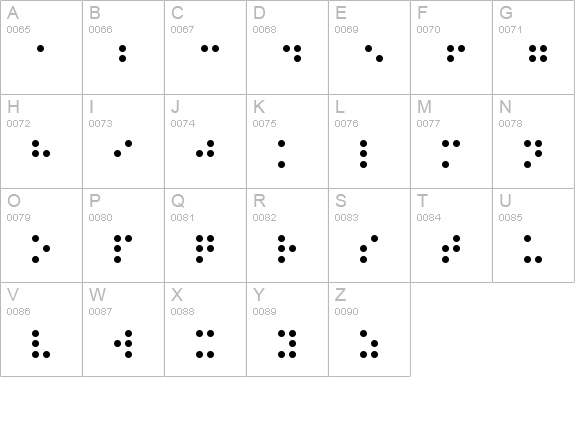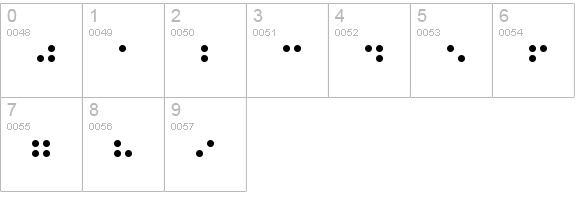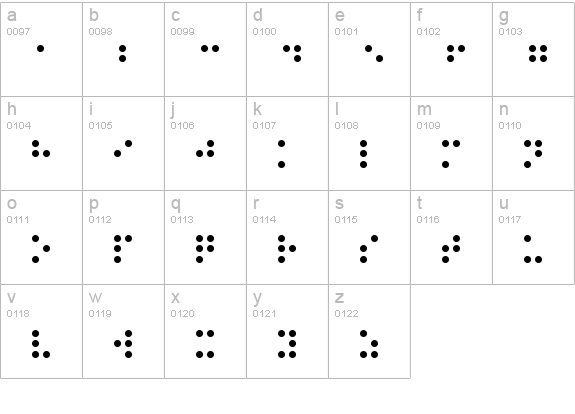
The Balkan Peninsula Braille font is a unique and specialized typeface designed to assist individuals with visual impairments in accessing information through the Braille system. This font is meticulously crafted to accurately represent the Braille alphabet, making it easy for users to read and understand tactile writing. What sets the Balkan Peninsula Braille font apart is its distinct design inspired by the cultural heritage of the Balkan Peninsula. The font's intricate patterns and geometric shapes pay homage to the rich history and diversity of the region, adding a touch of artistry to the practicality of Braille communication. Moreover, the Balkan Peninsula Braille font is available for free download at FontsMarket.com, making it easily accessible to anyone in need of a Braille typeface for their projects. Whether you're creating educational materials, signage, or documents for the visually impaired, the Balkan Peninsula Braille font offers a versatile and visually appealing solution. Download this font today and enhance accessibility for all!